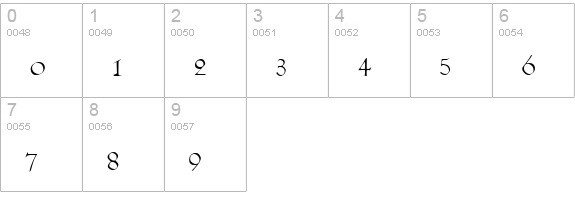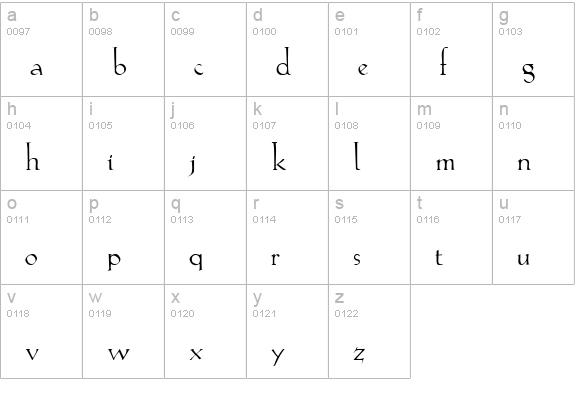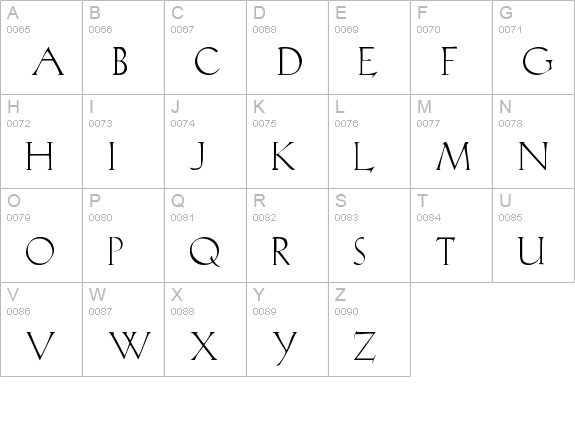
LilithLight Font Details
LilithLight font is a unique and elegant typeface that exudes a sense of sophistication and charm. With its delicate curves and graceful lines, this font is perfect for adding a touch of refinement to any design project. The light weight of the font gives it a delicate and airy appearance, making it ideal for projects that require a subtle and feminine touch. What sets LilithLight font apart is that it is not only beautiful, but also free to use. That's right, this stunning font is freely available to download at FontsMarket.com, making it accessible to anyone looking to elevate their designs with a touch of elegance. Whether you're working on a wedding invitation, a branding project, or a social media graphic, LilithLight font is sure to add a touch of sophistication and style to your work. Download it today and see for yourself the magic that this font can bring to your designs.